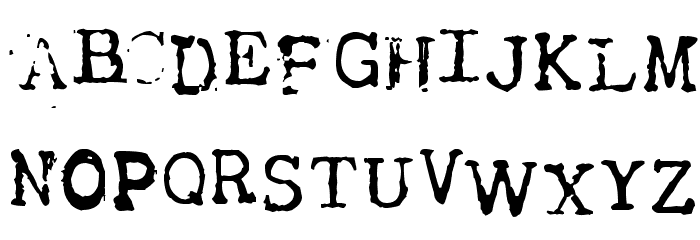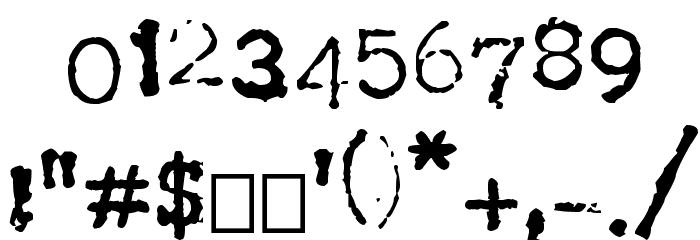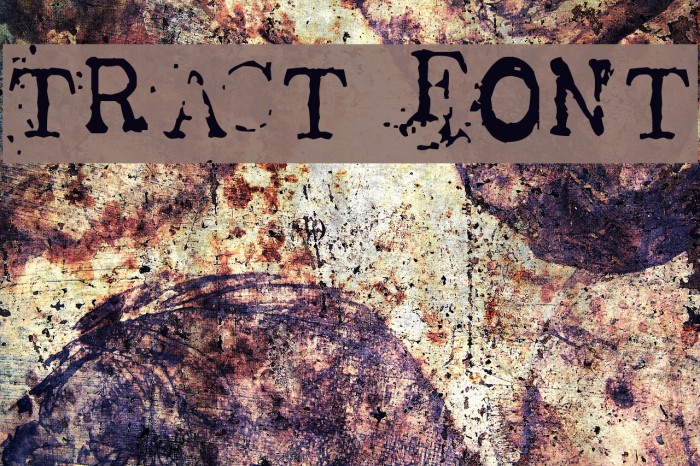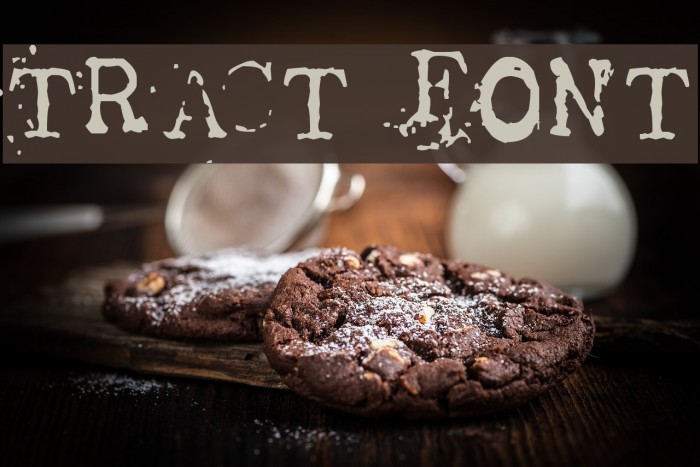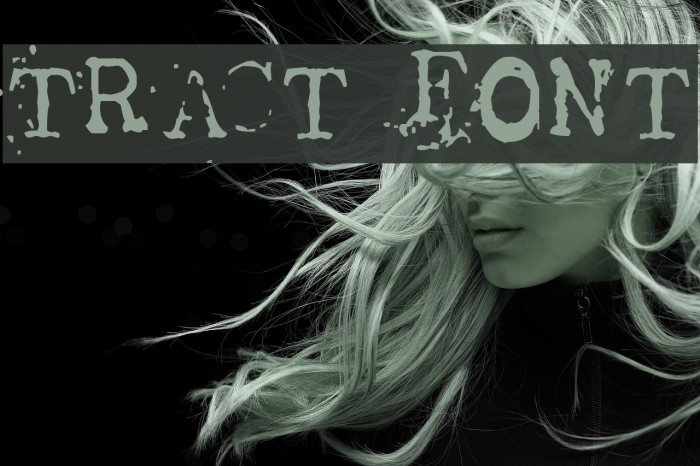
Tract Font
This font features a distressed, grunge style with irregular edges and a textured appearance, giving it a worn and vintage feel. The characters are bold and have a rough, uneven surface that suggests a hand-crafted or weathered look. The uppercase and lowercase letters maintain a consistent style, while the numerals and special characters follow the same distressed theme. This font is ideal for projects that require a rugged, edgy aesthetic, such as posters, album covers, or themed event materials.
A distressed, grunge-style font with a textured, vintage appearance.
- Proposed Projects: Ideal for posters, album covers, themed events, or any project needing a rugged, edgy aesthetic.
- Overall Style: Vintage